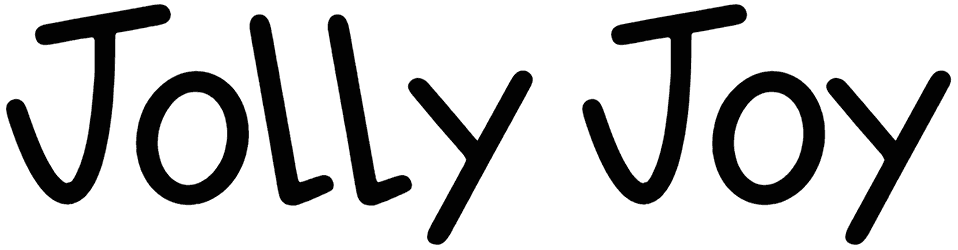
Jolly Joy Font
Embrace Jolly Joy with its cute handwritten style, and let it add a nice, friendly tone to your texts. This cartoon font is one hundred percent suitable for kids and grown-ups too. So go with it for creating lovely invitation cards, apparel, social media covers, and whatever else.